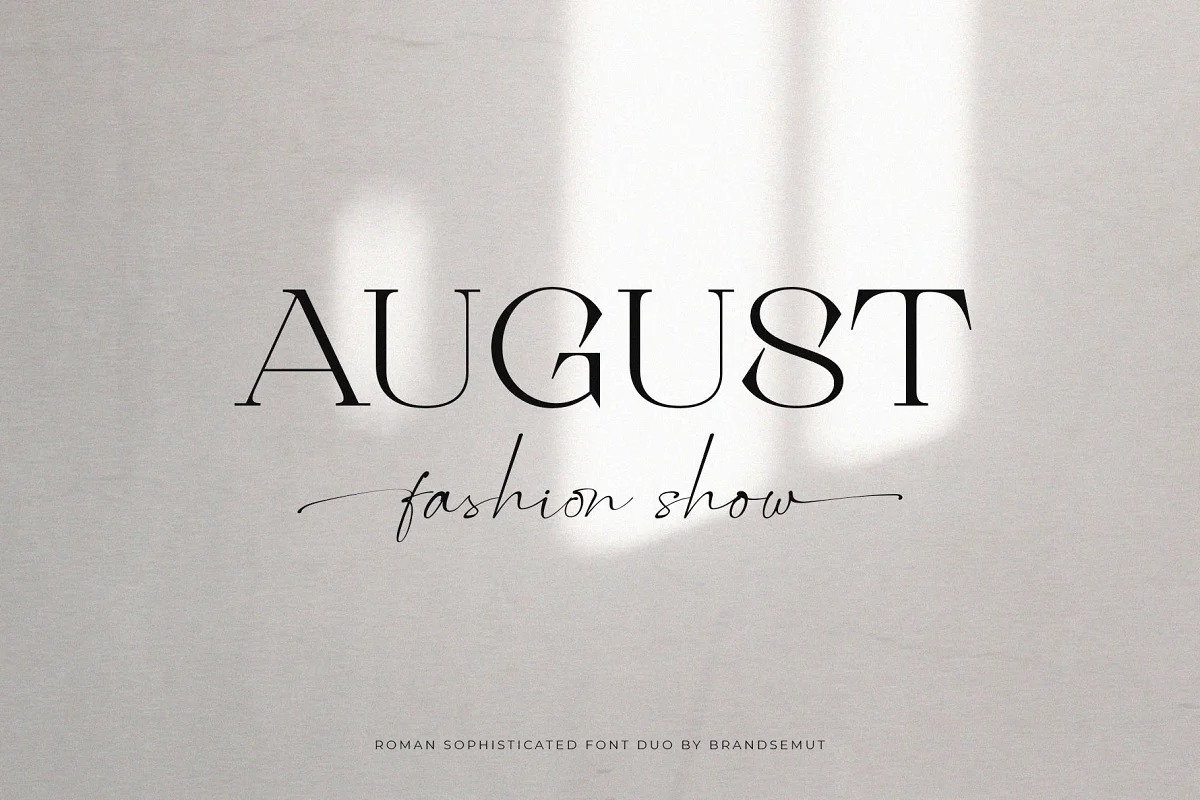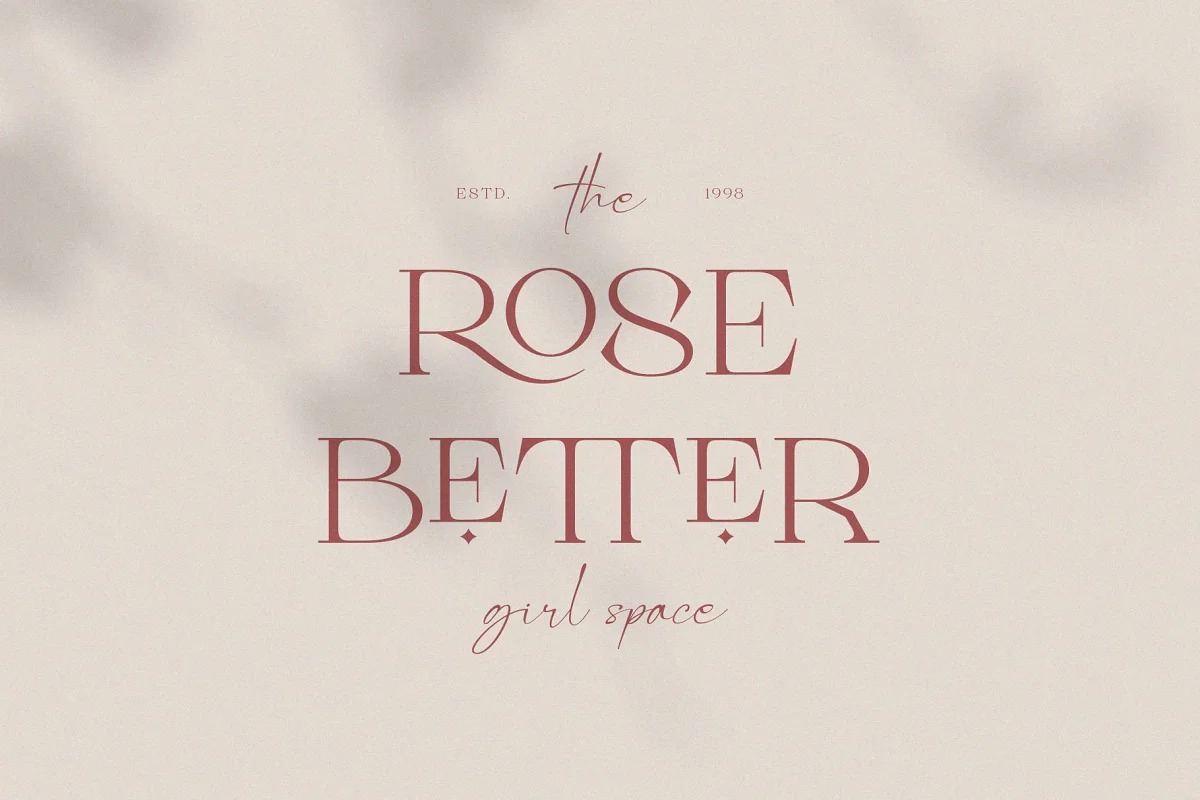
Roman Sophisticated Font Duo
If you are looking for an elegant typeface duo with flair. Something that can makes your project or design being so special. You better not going to want to miss this one! Roman Sophisticated is a luxury and sophisticated font duo that includes a signature script and a serif typeface – already matched up and ready to be used together for your next design! Roman Sophisticated best used as a display for headings, logos, branding, magazines, product packaging and invitations, etc.
Roman Sophisticated was built with OpenType features and includes ligatures, alternates, numbers, punctuation, and it also supports other languages.